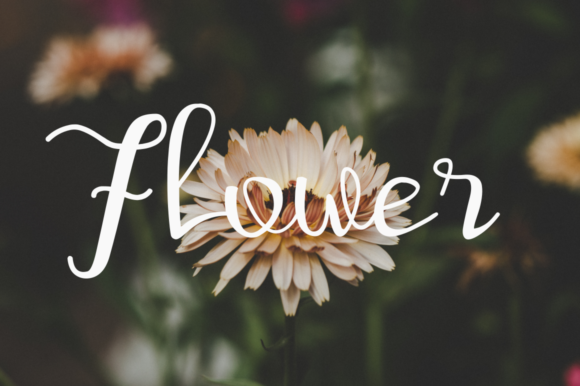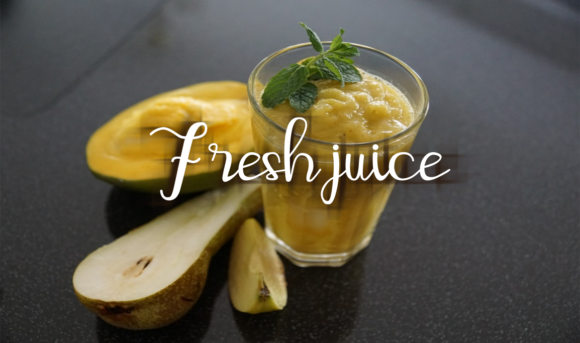
Introduction to Shurtiey Font
Shurtiey is a distinct, elegant handwritten font that blends traditional influences into a contemporary aesthetic.
Its well balanced Latin details contain distinctive contrasts Use this font to achieve an exquisite, yet subtle look and maximum versatility.